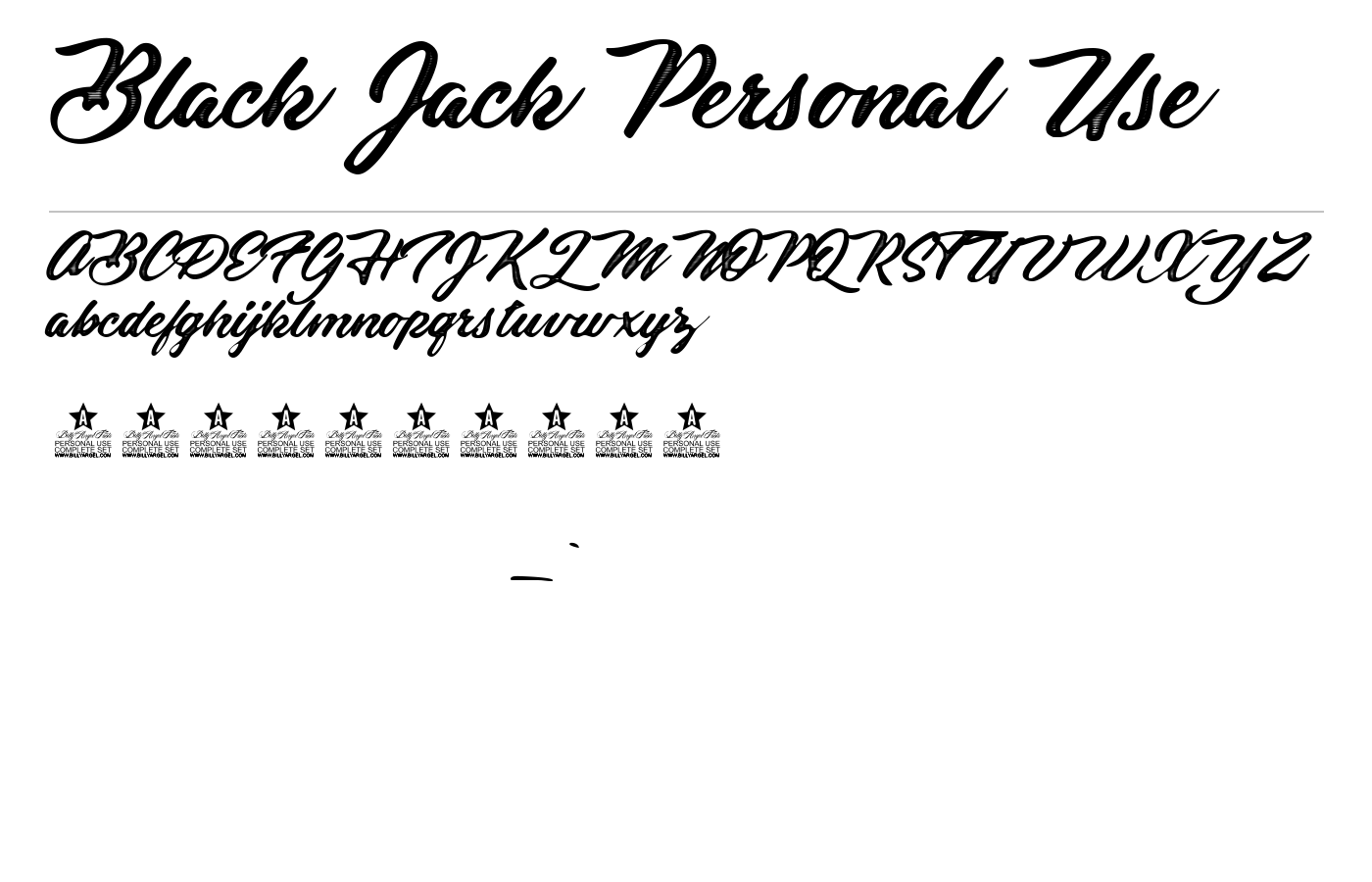
Black Jack Personal Use is a stylish script font with a smooth, handwritten feel that combines elegance and casual charm. Its flowing, connected letterforms and moderate contrast give it a lively yet refined personality, making it perfect for branding, invitations, and any design that benefits from a personal, approachable touch. This font works especially well for creative projects looking to convey warmth and friendliness while maintaining a polished look.
Black Jack Personal Use Font
About Black Jack Personal Use Font
| Font family | Black Jack Personal Use Font |